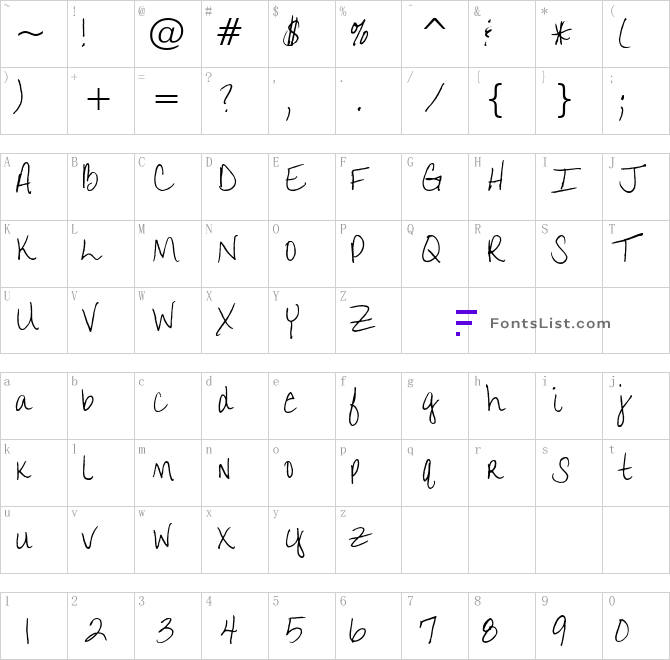
• Font Name:Aundee BTN
• Subfamily:Aundee BTN
• Full Name:Aundee BTN
• PostScript:AundeeBTN
Aundee-BTN.ttf is a very beautiful artistic font, Aundee-BTN.ttf is widely used in the design and printing of various books and pictures,Aundee-BTN.ttf has a strong visual impact,Aundee-BTN.ttf is a commonly used font in newspapers, magazines and books, and is used in posters, e-commerce Poster design, store design, logo design, font design and other fields.Aundee-BTN.